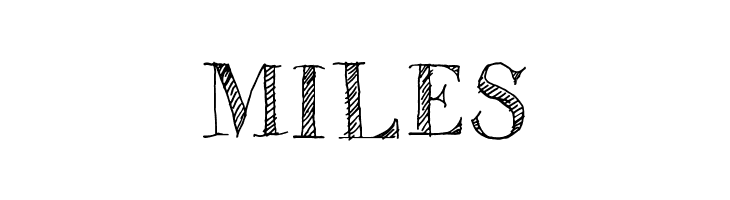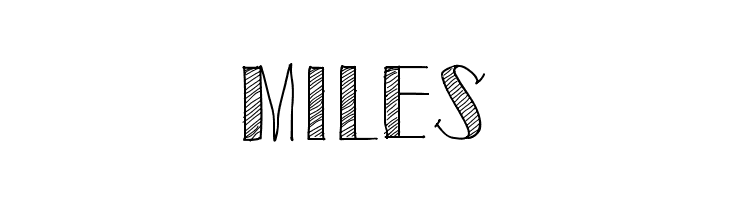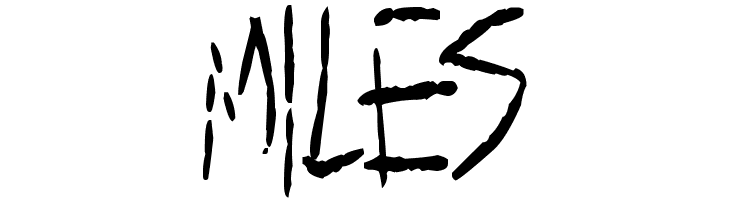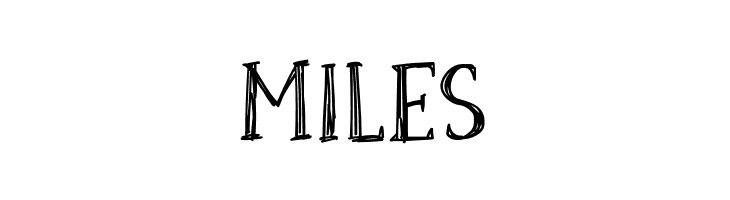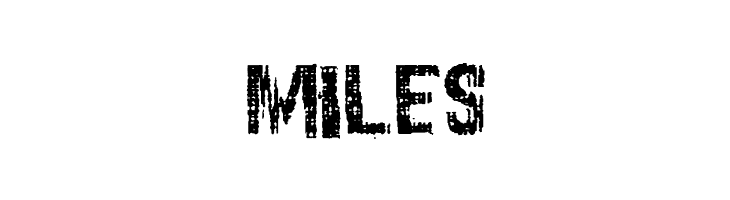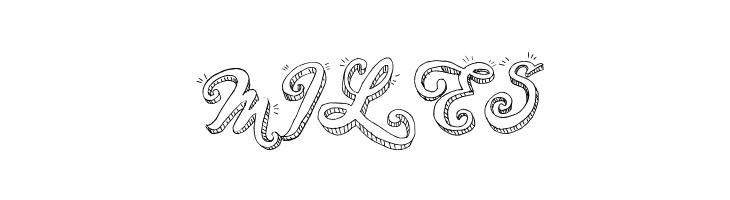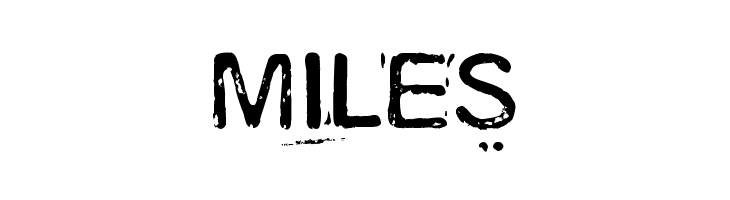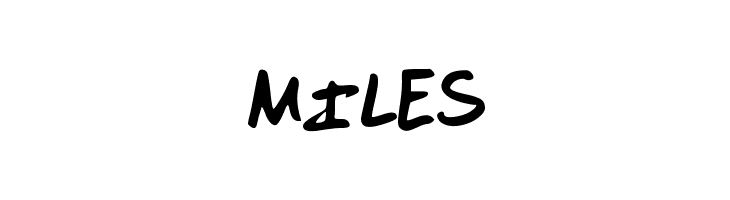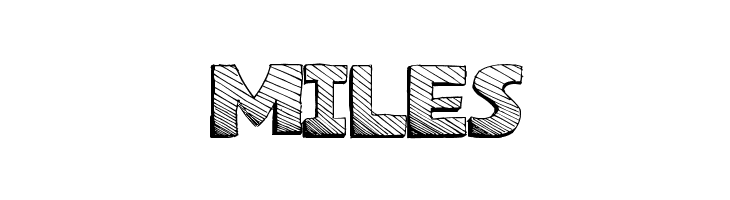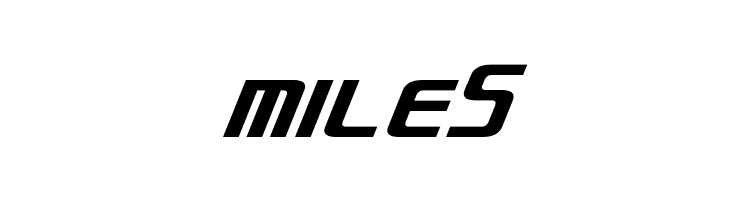
A whimsical, hand-drawn font with tall, narrow characters.
A bold, modern font with strong, thick strokes and geometric precision.
A bold, brush-style script font with dynamic, textured strokes.
A hand-drawn serif font with a sketch-like, textured appearance.
A playful, sketch-style cursive font with a hand-drawn, three-dimensional look.
A playful, hand-drawn font with a sketch-like, textured appearance.
A playful 3D sketch-style font with bold, textured characters.
A playful, 3D sketch-style font with bold, hand-drawn characters.
A bold, sketch-style font with a playful, hand-drawn appearance.
A dynamic, sketchy font with a hand-drawn, energetic style.
A bold, geometric font with a mechanical, stencil-like design.
A sleek, modern font with thin, elongated letterforms for a sophisticated look.
A playful, hand-drawn serif font with a whimsical and artistic style.
A distressed, industrial-style font with a bold, mechanical appearance.
A rough, hand-drawn font with a textured, artistic style.
A bold, distressed font with a grunge, vintage appearance.
A jagged, hand-drawn font with an edgy, artistic style.
A modern, slim font with clean lines and geometric shapes.
A pixelated, retro-style font with a uniform, blocky appearance.
A bold, dripping font with a spooky, fluid design.
A bold, brush-style font with dynamic, hand-painted characteristics.
A dynamic, angular font with a futuristic and oblique style.
A bold, geometric stencil font with a modern, industrial feel.
A playful, hand-drawn style with rounded edges and consistent stroke width.
A vintage, monospaced typewriter-style font with a rounded, mechanical appearance.
A casual, handwritten script font with a friendly and fluid style.
A playful, handwritten font with a smooth, marker-like appearance.
A playful, handwritten-style font with smooth, flowing lines and rounded edges.